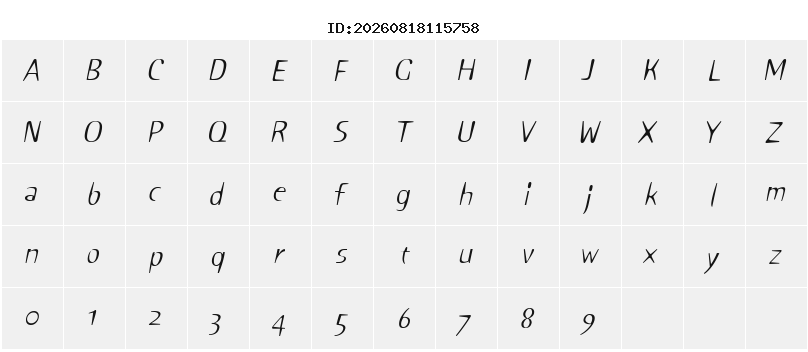
Sniff Preview
• Font Name: Sniff
• Font ID: Macromedia Fontographer 4.1 Sniff Italic
• Full Font Name: Sniff Italic
• Version: Macromedia Fontographer 4.1 8/12/96
• PostScript Name: SniffItalic
• Character Count: 192
About Sniff.ttf
Sniff.ttf is a modern, elegant sans-serif font designed for ultimate readability and visual harmony. Perfect for branding, headlines, web design, and print materials.